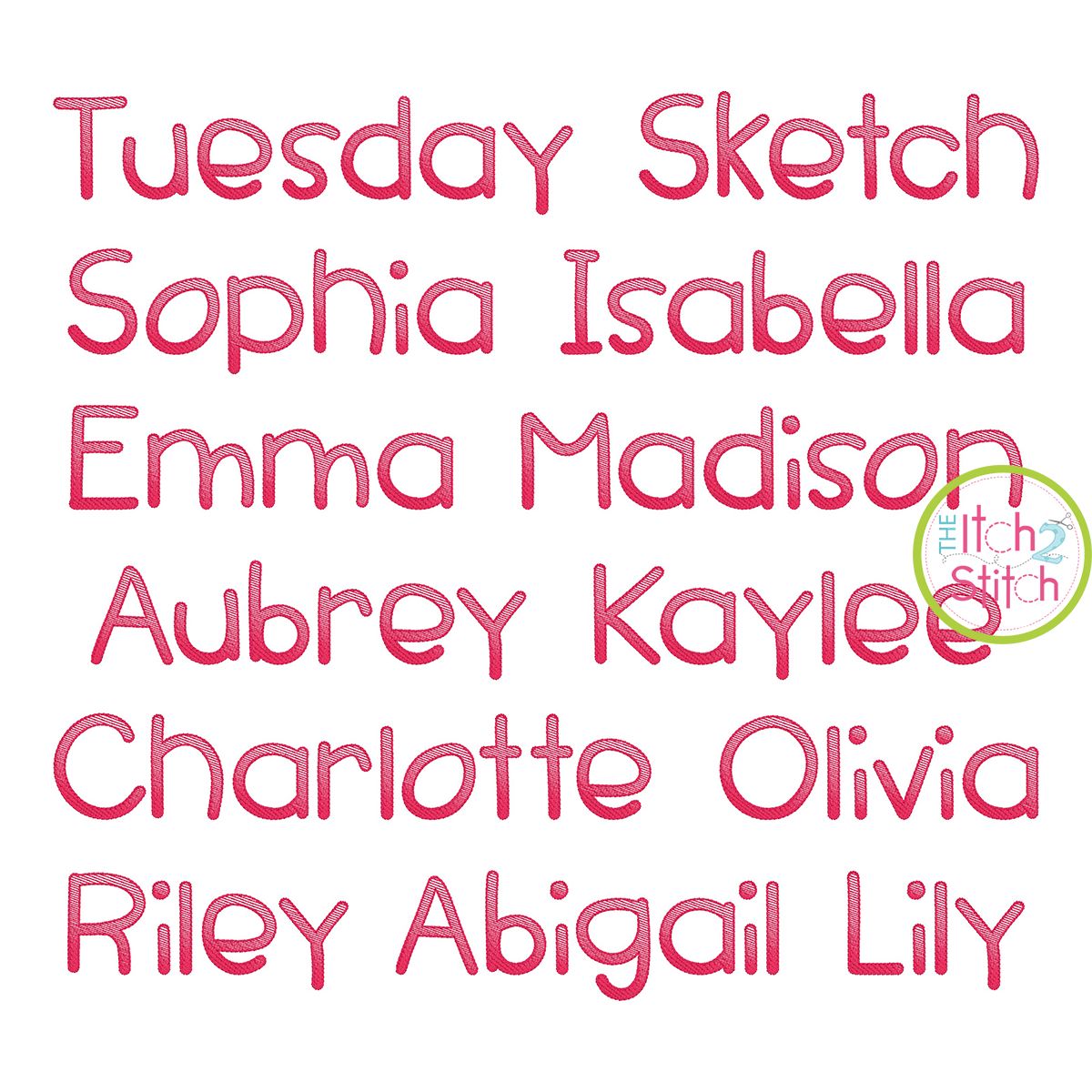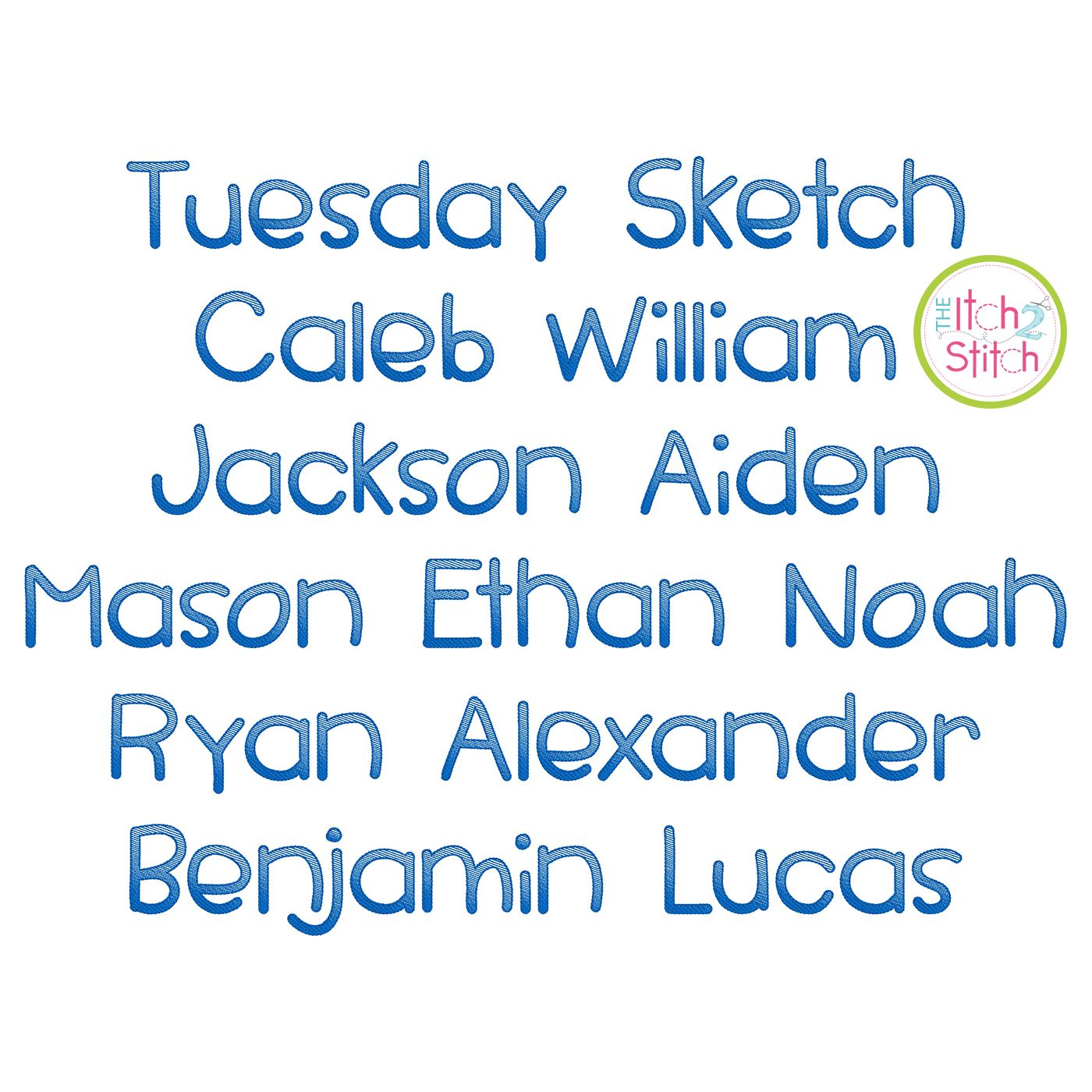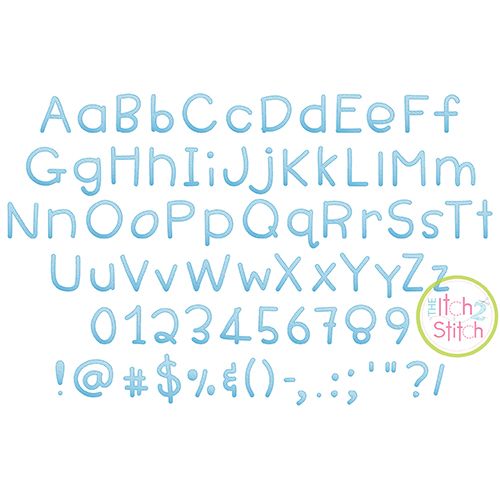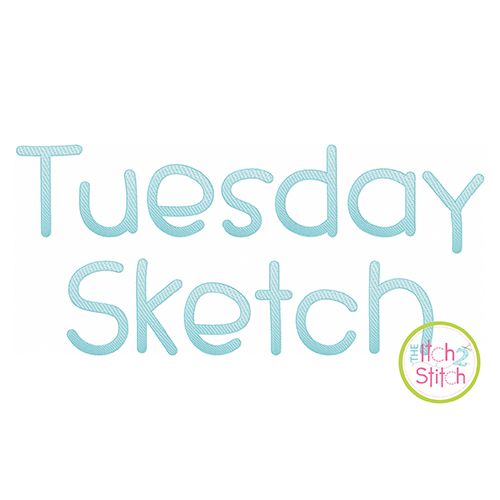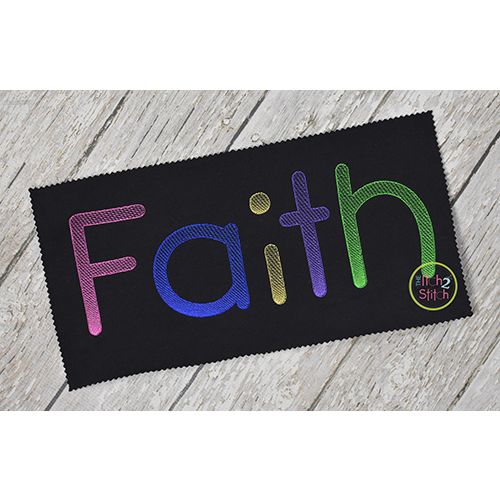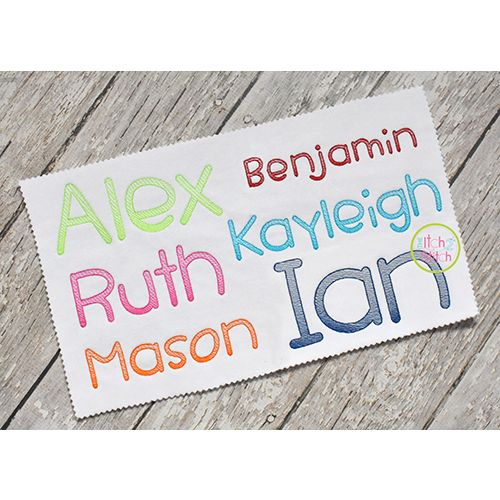
Tuesday Sketch Stitch Embroidery Font
Please note this is not applique, nor is it a traditional satin or fill stitch font. The light and airy "sketch" fill pattern allows for a quick stitch out. The space between each line of stitching varies such that it is more dense at the bottom than the top of each letter to create the shading effect. The letter is finished off with a triple bean stitch outline. We do not recommend resizing this font in software. Small satin stitch sizes are sold separately.